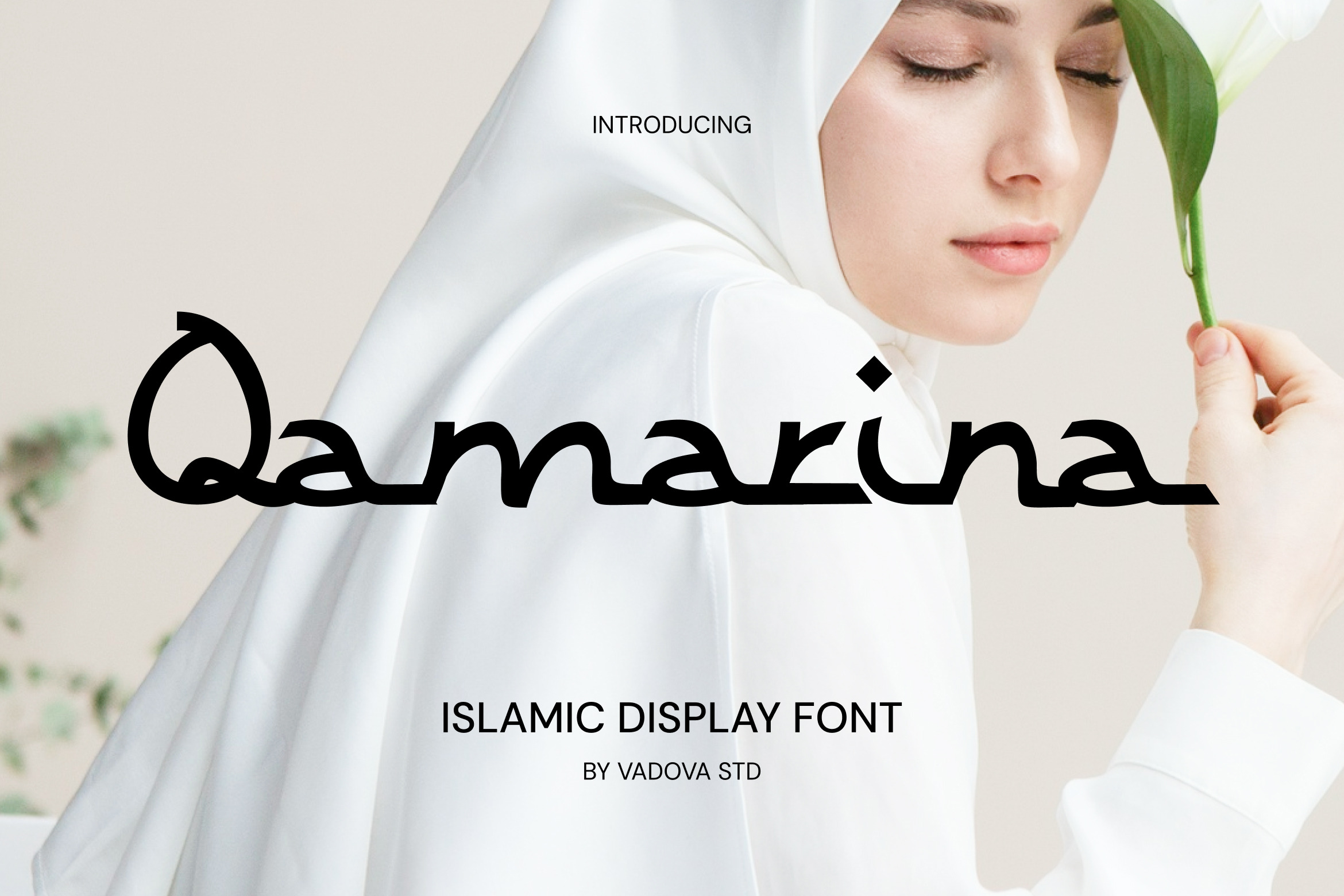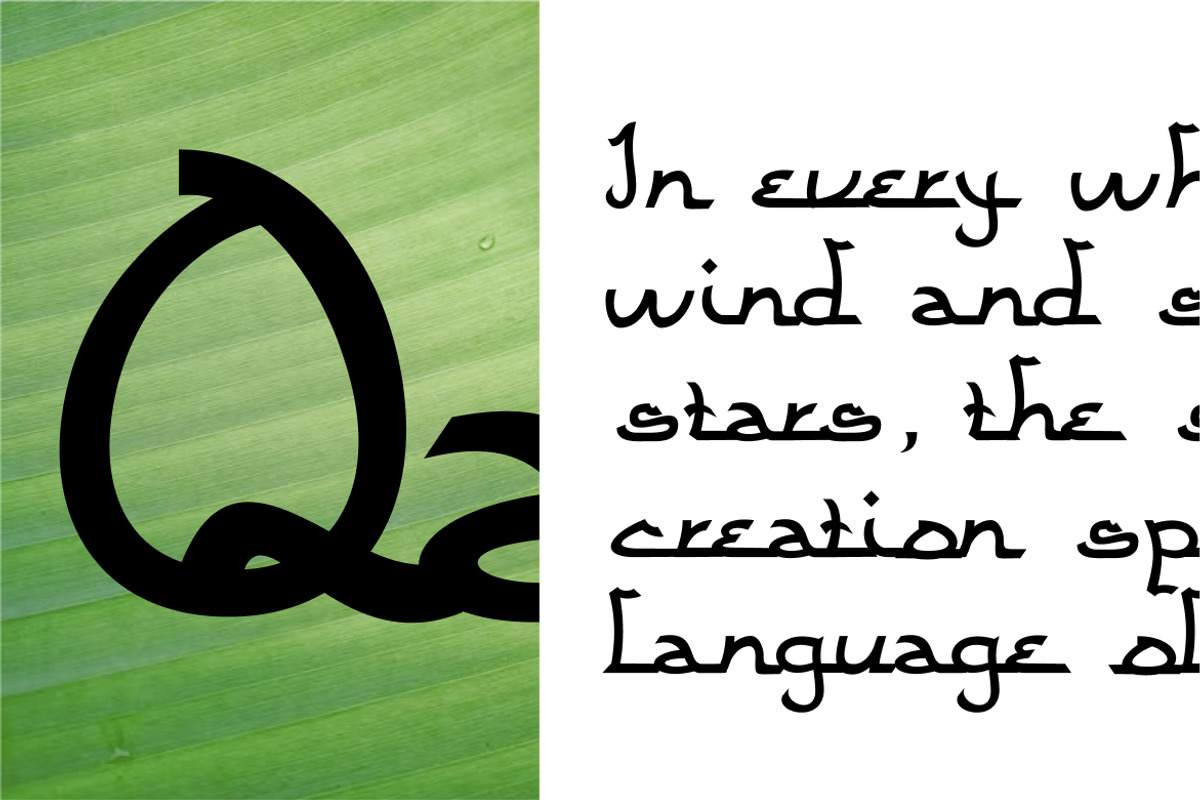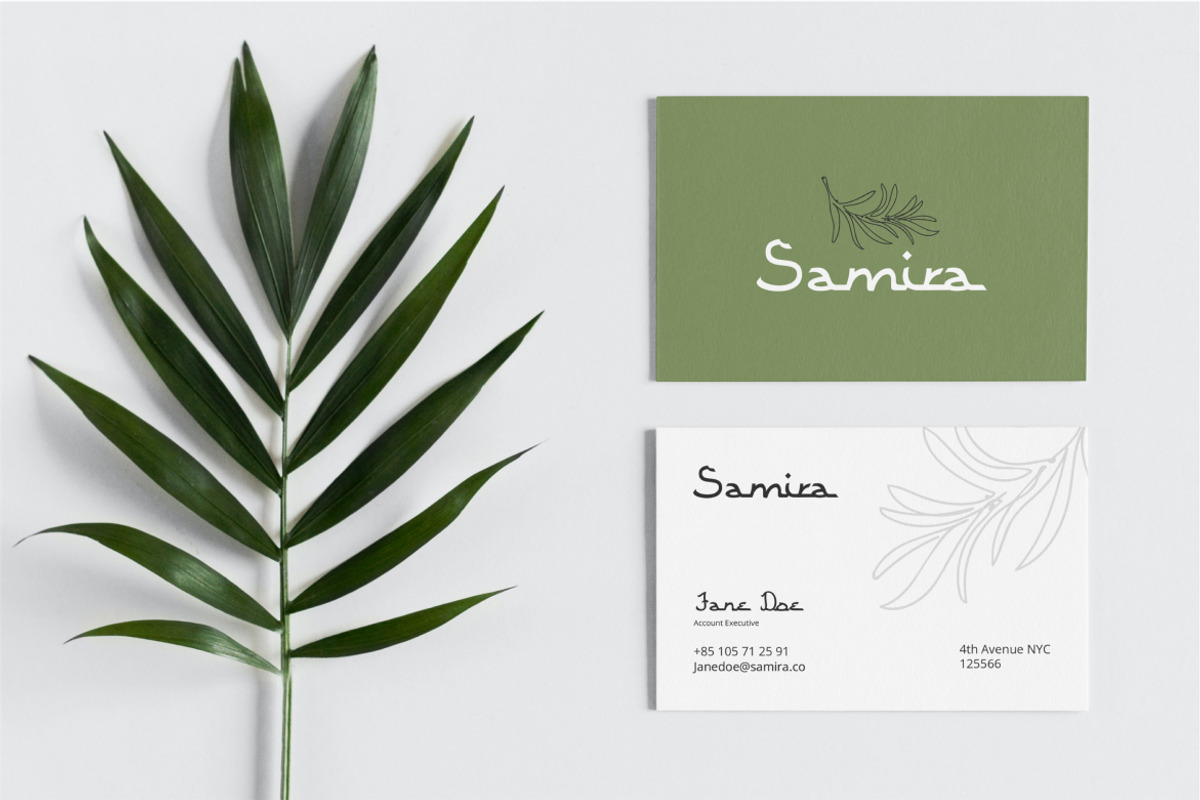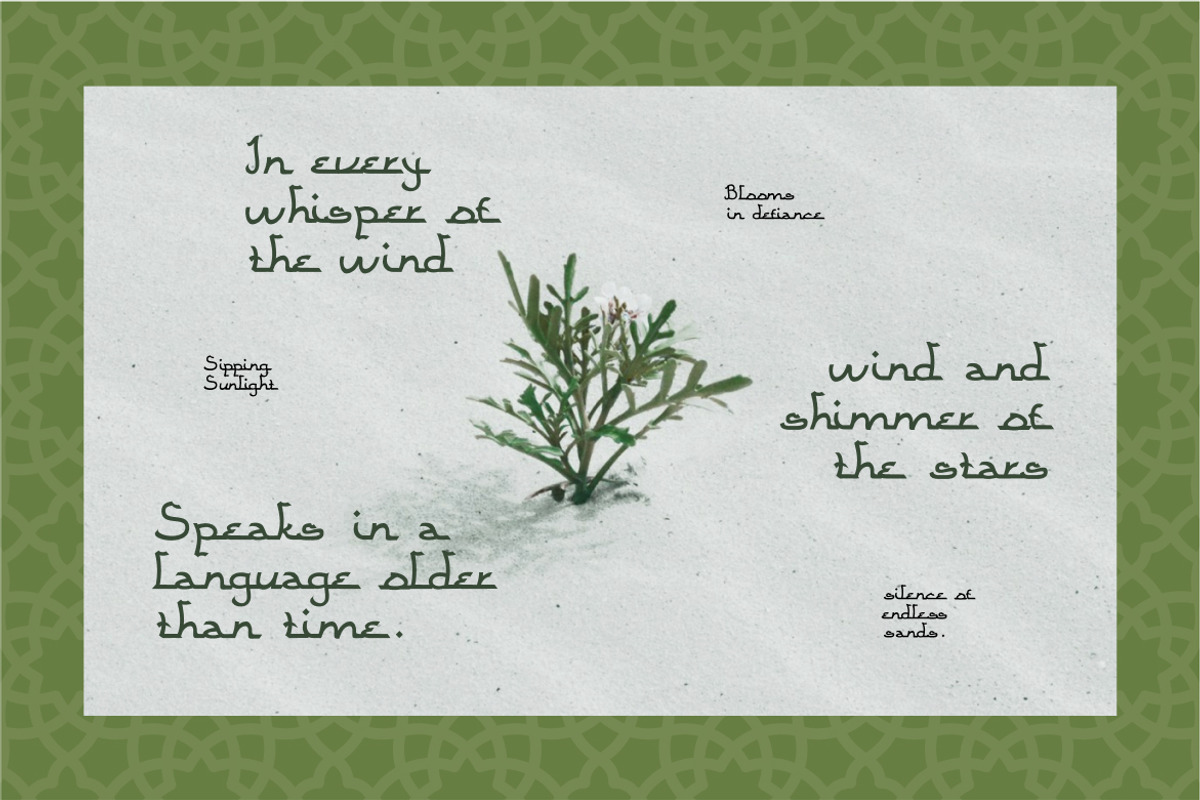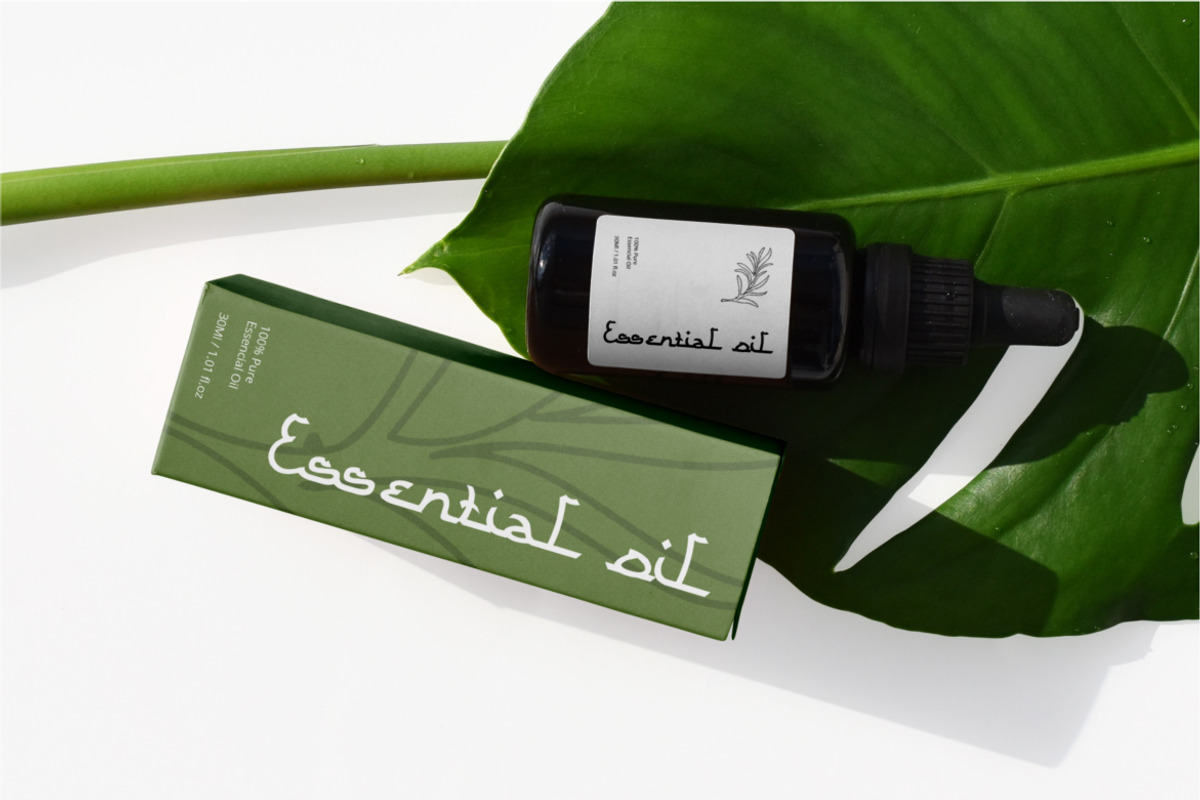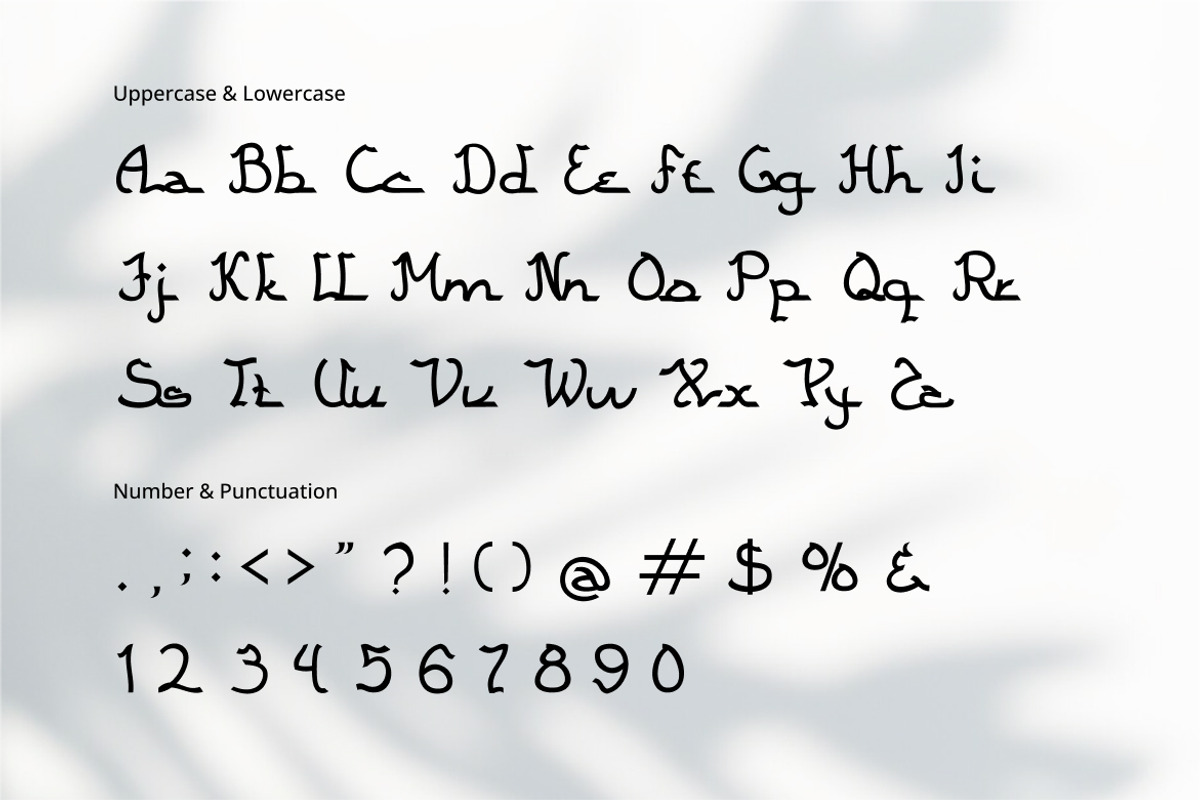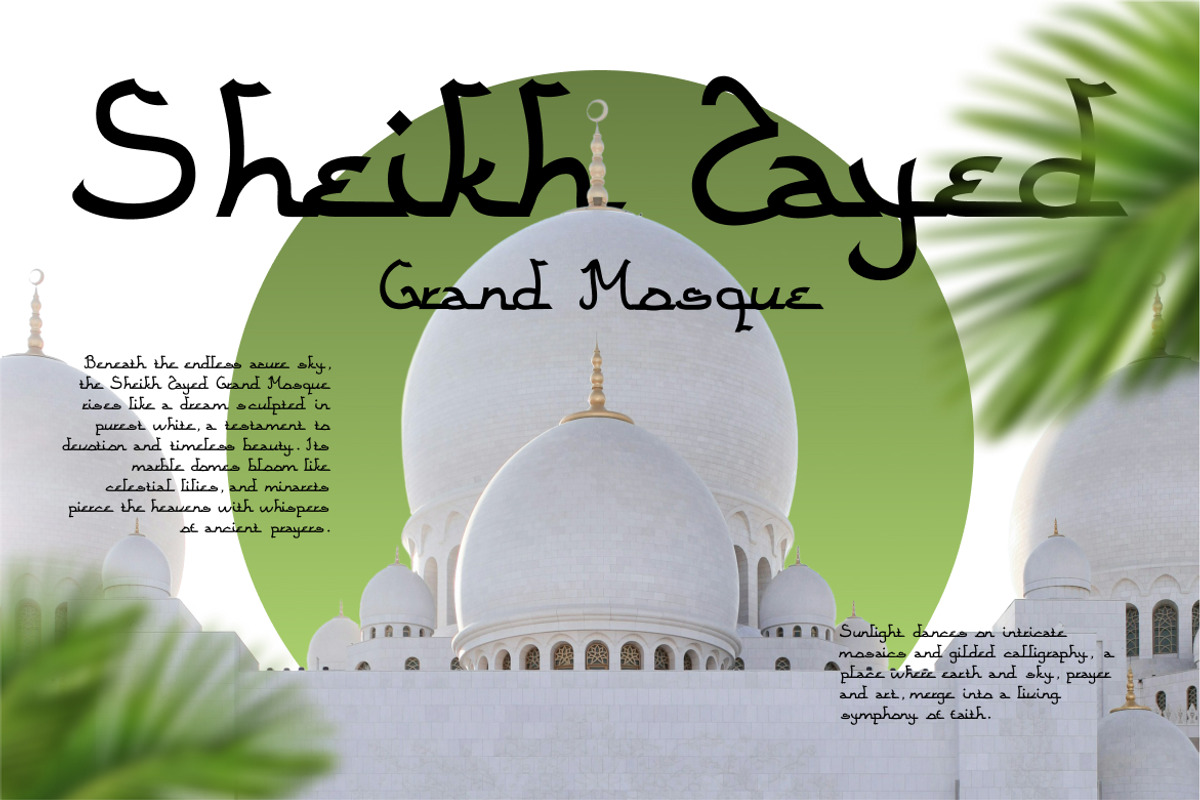
Qamarina Islamic Display Font
Qamarina is a thoughtfully crafted Islamic display font that gracefully blends expressive character shapes with the elegance of modern calligraphic flair. Rooted in the aesthetics of Arabic script and Middle Eastern visual culture, Qamarina captures the essence of handwritten beauty with a refined, contemporary twist. Every curve, stroke, and flourish in the font has been carefully shaped to evoke both tradition and innovation offering designers a unique typeface that radiates sophistication and spiritual depth.
Qamarina’s distinctive design is well-suited for a wide range of creative applications. Whether you’re designing Eid or Ramadan greeting cards, covers for religious publications, elegant packaging for halal products, or social media visuals for modest fashion brands, this typeface delivers impact with a calm and dignified presence. It’s also ideal for personal storytelling, ceremonial stationery, poetry layouts, inspirational quotes, and editorial spreads that require a meaningful tone.
- Arabic-inspired structure with contemporary Latin character integration
- Elegant calligraphic strokes balanced with modern sans-serif proportions
- Flowing baselines and curved terminals for visual softness and rhythm
- Stylized diacritic-like accents adding cultural depth and uniqueness
- Smooth contrast and spacing for refined legibility across sizes and platforms
- Invitations and greeting cards for Eid, Ramadan, and religious events
- Editorial layouts and book covers with spiritual or poetic themes
- Packaging design for halal products, perfumes, and artisanal goods
- Social media graphics and content for Islamic lifestyle or community pages
- Event posters, signage, and visual branding for spiritual gatherings or festivals
Gracefully modern, beautifully meaningful let Qamarina shape your next creation